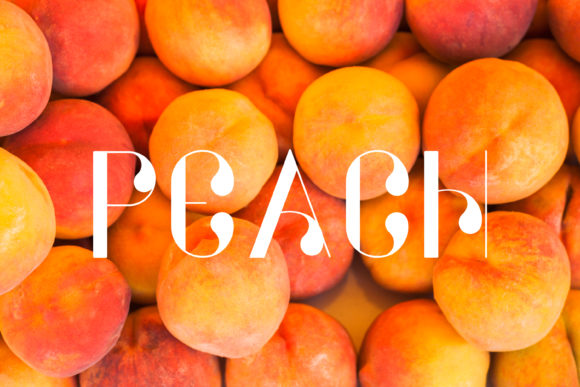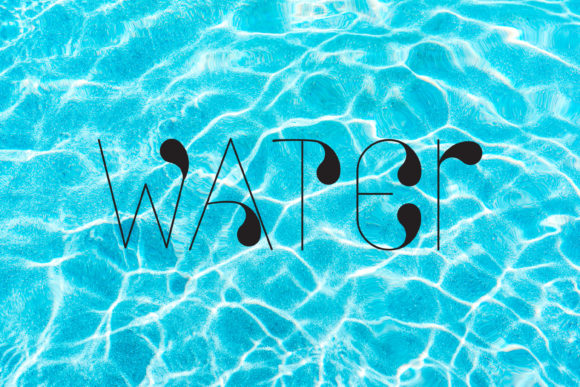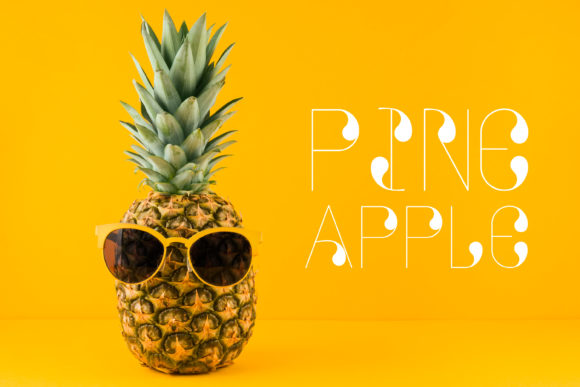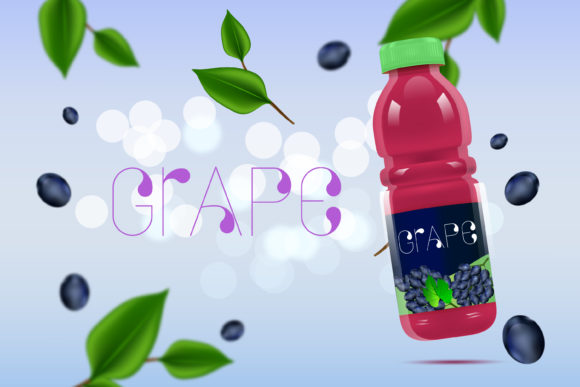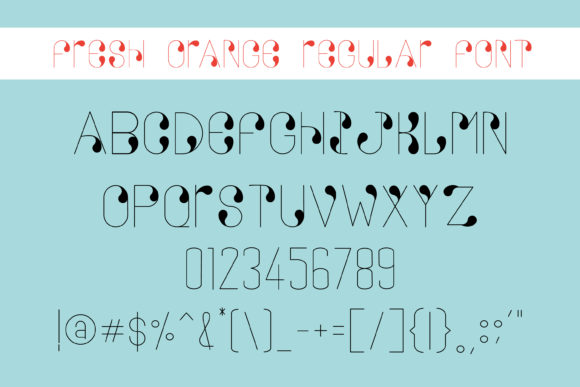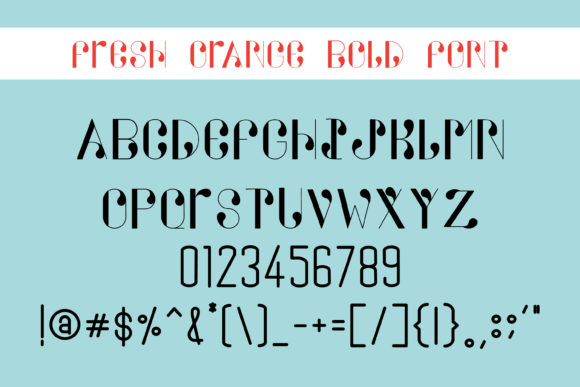
Discover Your New Favorite Font: Fresh Font
Have you ever stared at a blank canvas, struggling to find the perfect font to bring your creative vision to life? That’s a feeling we’ve all been there. But what if we told you that there’s a font that can elevate your designs and leave a lasting impression?
Enter Fresh Font, a modern and quirky decorative font designed to take your projects to new heights. With its classy calligraphic influences and contemporary feel, Fresh Font is the perfect addition to any designer’s toolkit. Whether you’re working on a branding project, a social media campaign, or a website design, Fresh Font is sure to bring a fresh touch to your work.
As a designer, you know that the right font can make all the difference in capturing your audience’s attention. That’s why Fresh Font is a valuable addition to any designer’s arsenal. With its versatility and unique style, Fresh Font is sure to become a true favorite.
Fresh Font Key Features
- Unique Characteristics: Features a clean and modern design aesthetic, making it perfect for use in contemporary branding, advertising, and digital media.
- Language Support: Includes comprehensive language support, covering Latin, Cyrillic, and Greek alphabets, as well as various diacritical marks and special characters.
- Style Variations: Offers a range of style variations, including bold, italic, and condensed versions, allowing for versatility and flexibility in design applications.
Designer Review: Fresh Font
I recently had the chance to work with Fresh Font, and I must say it’s a unique and interesting addition to my design toolkit. ✨ One of the things I appreciate about Fresh Font is its flexibility – it’s suitable for a wide range of applications, from digital displays to print materials.
Here are some of the things that work well with Fresh Font:
- ✨ Highly customizable: Fresh Font offers a wide range of options for adjusting the font’s style, from bold to thin, and from serif to sans-serif.
- ✨ Versatile: As I mentioned earlier, Fresh Font can be used for various projects, including web design, graphic design, and even signage.
- ✨ Modern aesthetic: Fresh Font has a modern, sleek look that can help give your designs a contemporary feel.
However, there are also some limitations to consider:
- ⚠️ Limited character set: Fresh Font’s character set is not as extensive as some other fonts I’ve worked with, which may cause issues if you need to typeset complex text.
- ⚠️ Some legibility issues: While Fresh Font looks great on screens, it can be a bit difficult to read in print, especially at small sizes.
Overall, I think Fresh Font is a solid choice for designers looking for a versatile, modern font. However, it may not be the best option for projects that require a lot of complex text or high-contrast printing.
Fresh Font is ideal for creating visually appealing presentations, social media graphics, and branding materials. It’s perfect for adding a touch of modernity and sophistication to your designs.
Getting the Most Out of Fresh Font
To get the most out of Fresh Font, experiment with different font styles and combinations. Use it to create a consistent brand identity across all your designs. Don’t be afraid to try out new and bold font combinations to add visual interest to your work.